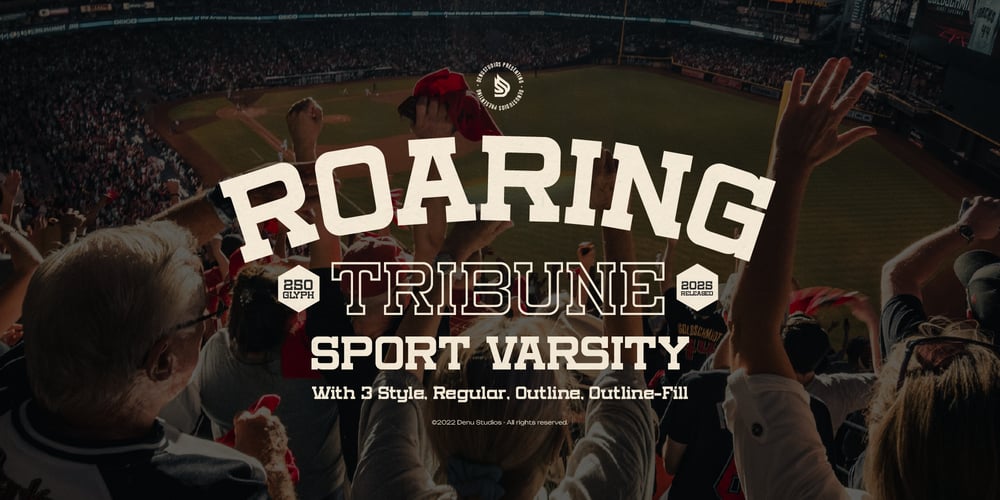
Roaring Tribune Outline
Roaring Tribune Outline font
Roaring Tribune Outline Font Family was designed by Dede Nugraha and published by Denustudio. Roaring Tribune Outline contains 1 styles and family package options. Roaring Tribune | Sport Varsity, from Denustudios, suitable for any projects such as: logos, branding projects, homeware designs, product packaging, mugs, quotes, posters, shopping bags, t-shirts, book covers, name card, invitation cards, greeting cards, label, photography, watermark, special events, and all your other lovely projects that need Sport Varsity a taste.===========================================================================What’s Included : Regular and Italic Web Font Standard glyphs Alternate and Ligature Works on PC & Mac Simple installations Accessible in the Adobe Illustrator, Adobe Photoshop, Adobe InDesign, even work on Microsoft Word and Other Software. PUA Encoded Characters – Fully accessible without additional design software. Fonts include multilingual support Hope you enjoy with our font!